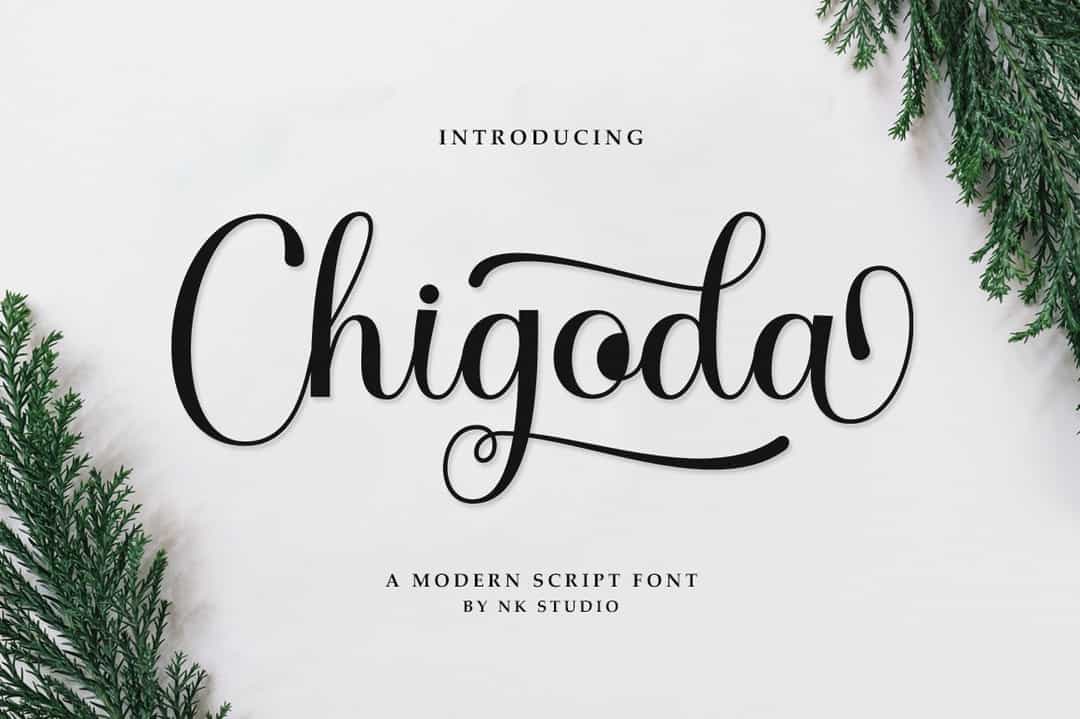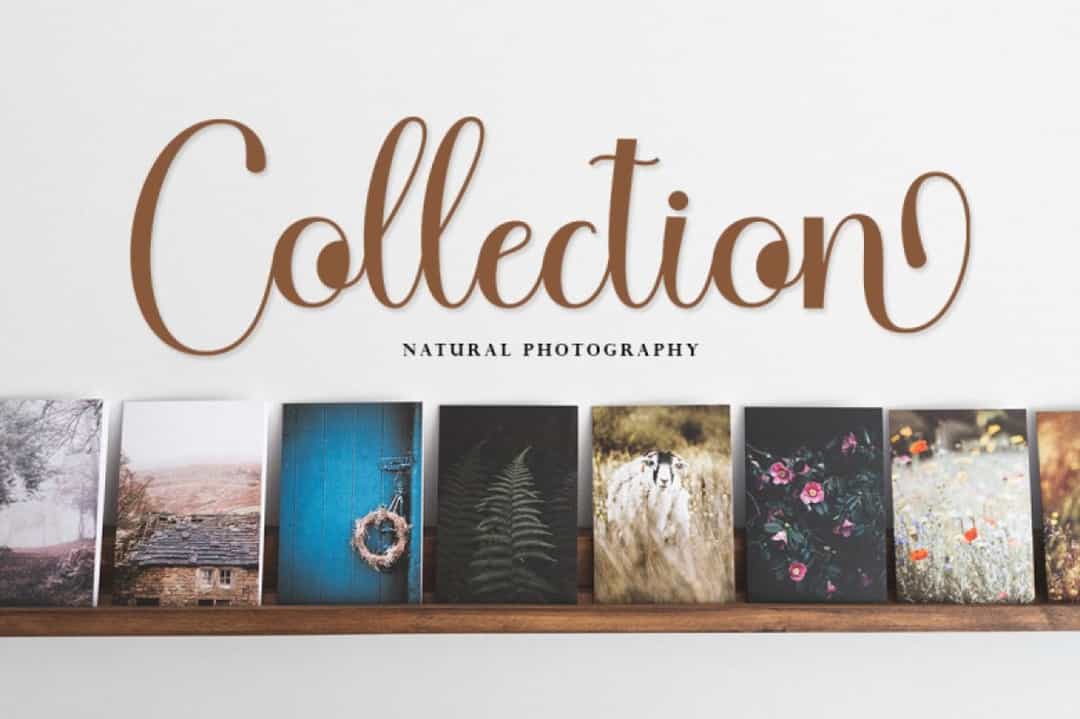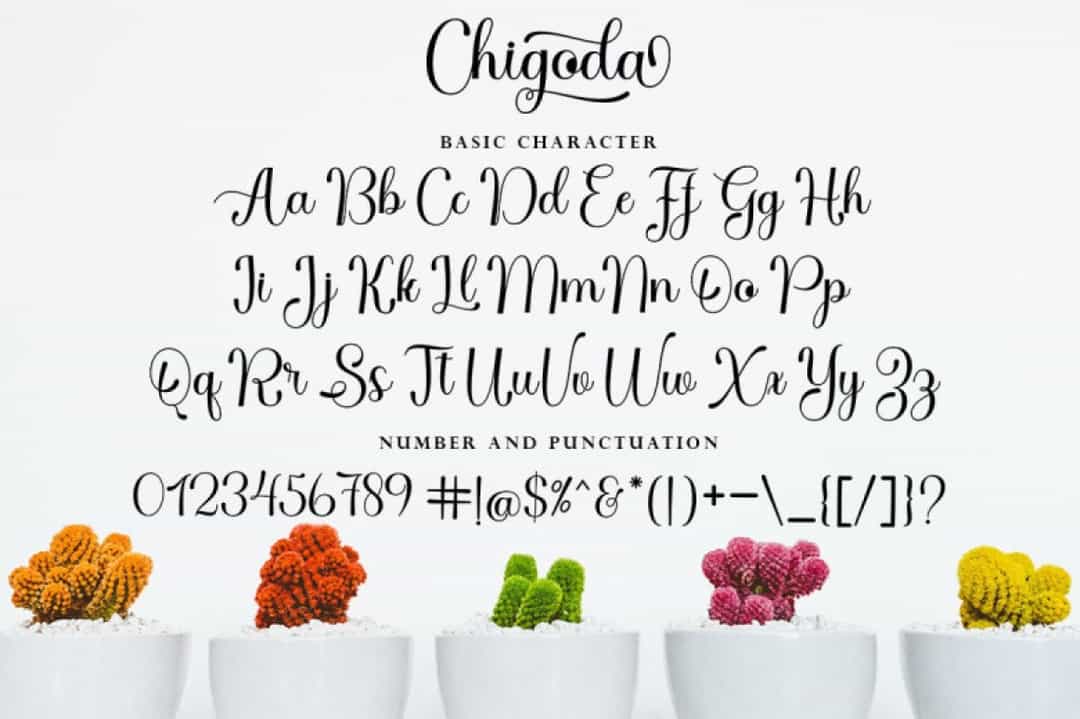
Chigoda Calligraphy Font features an elegant handwritten style. Comprised of 351 Glyphs, Chigoda Script can be used in homeware projects, branding design projects and product packaging design as well as invitation cards or business cards to add a hint of class to backgrounds or anywhere else requiring text overlay.